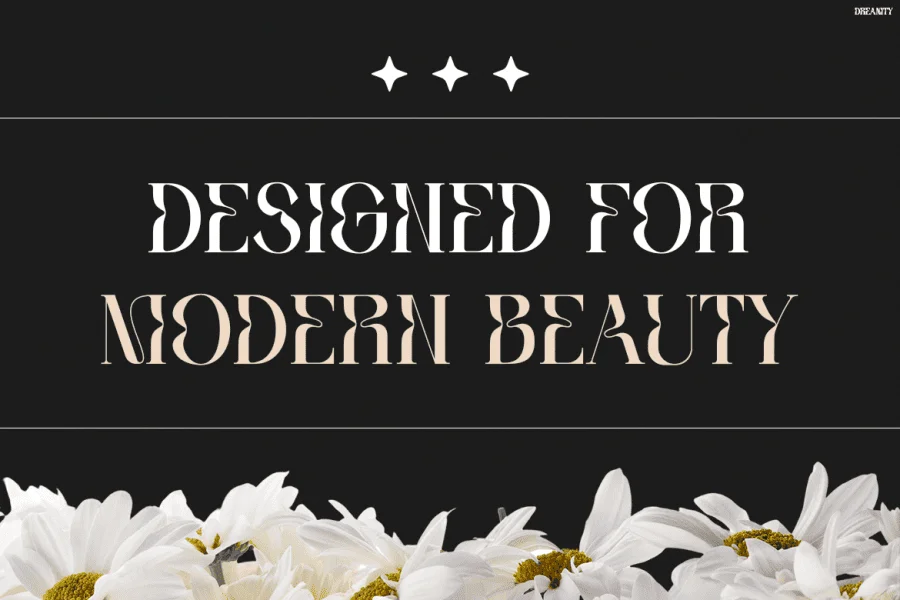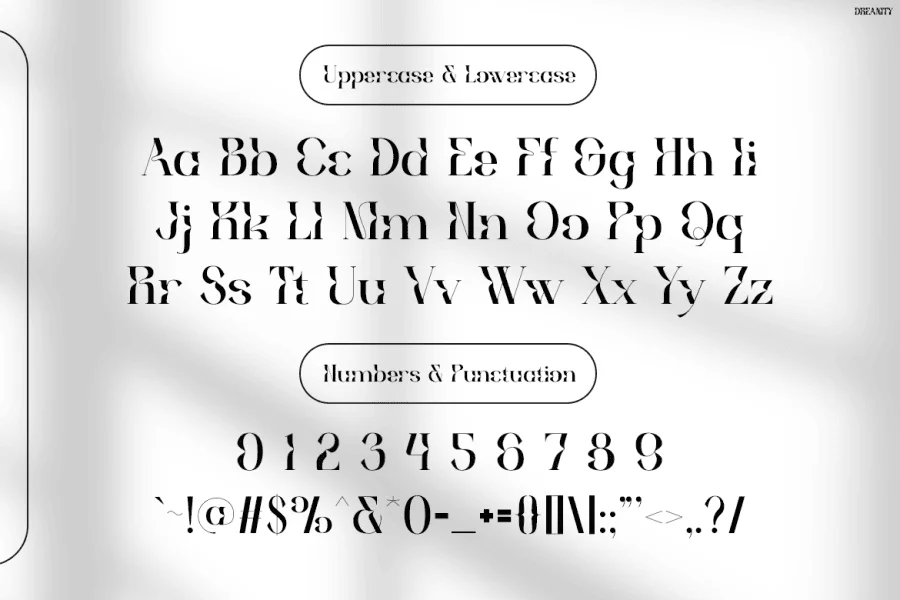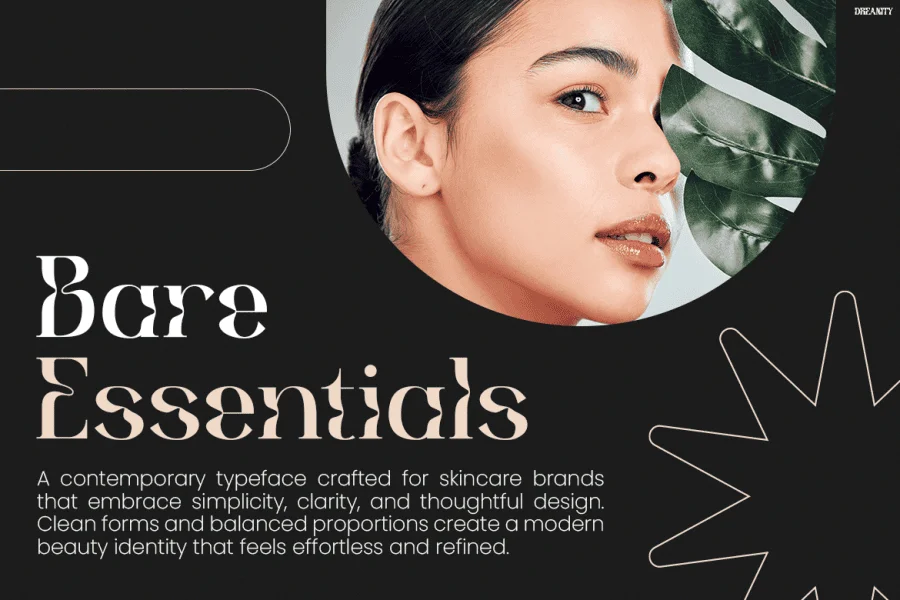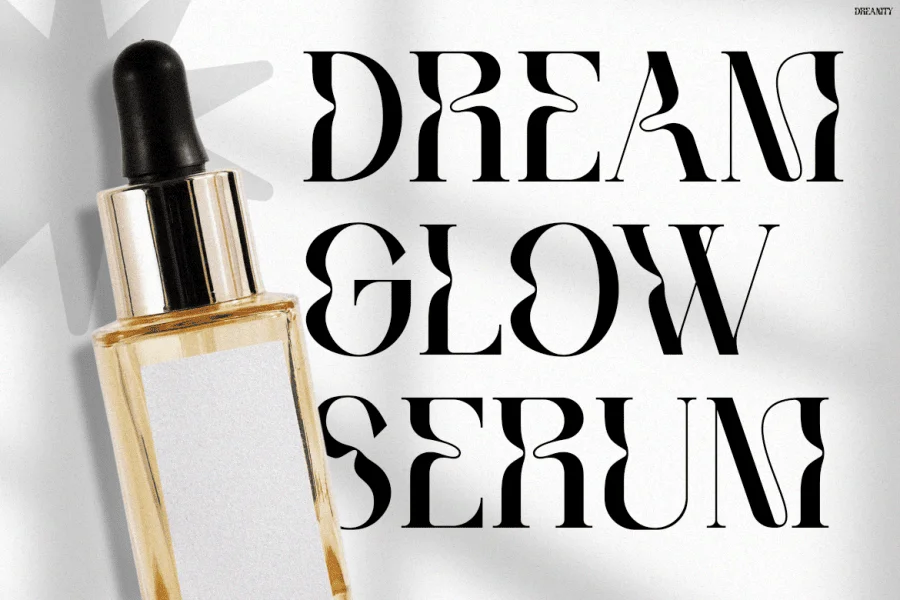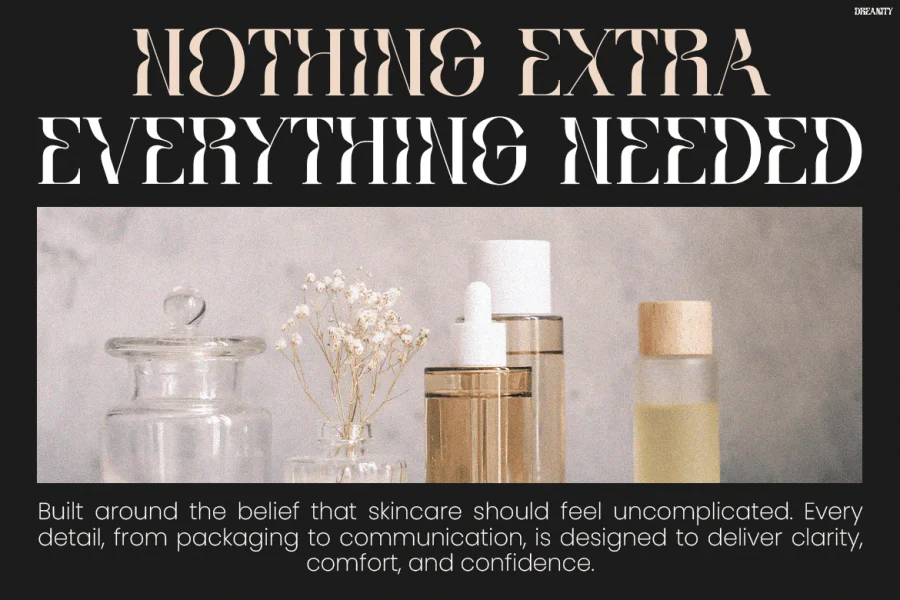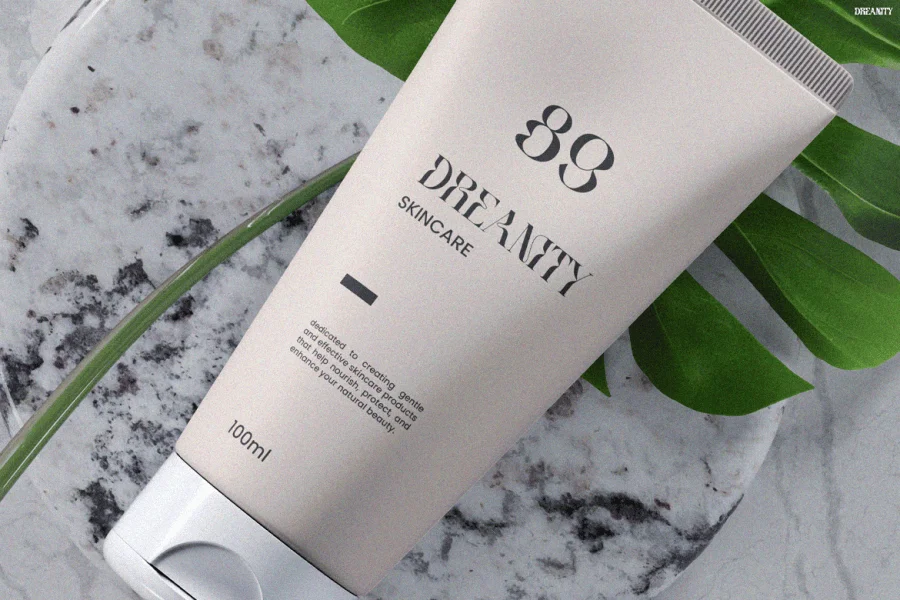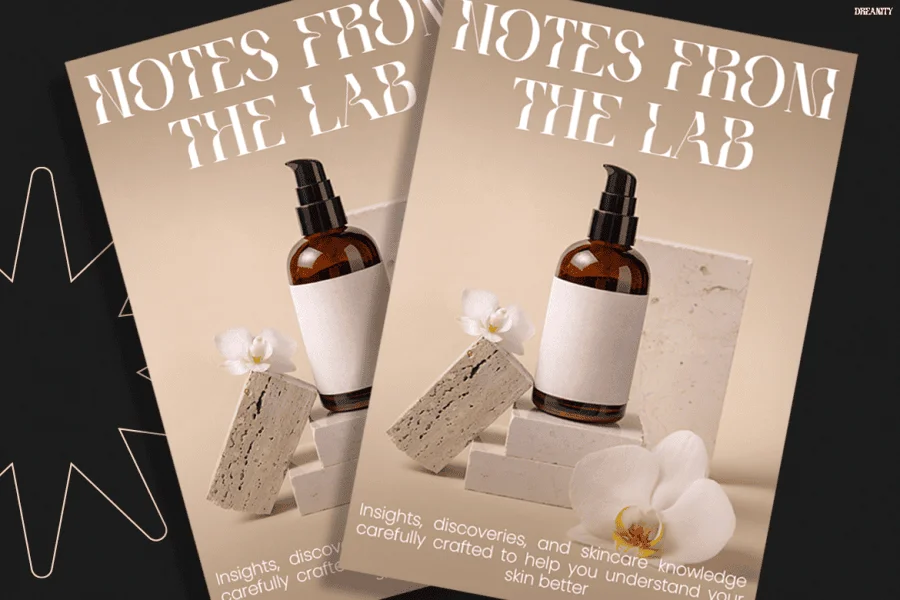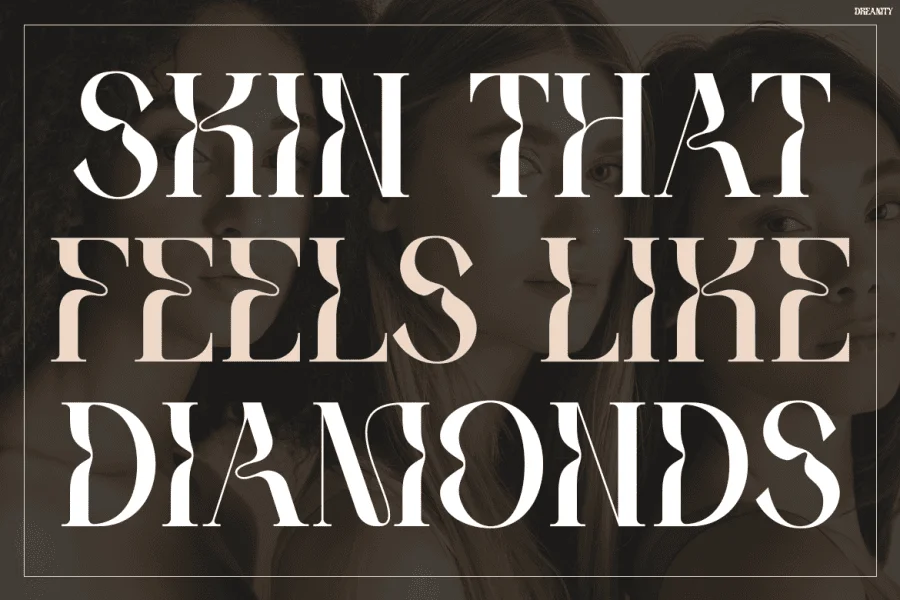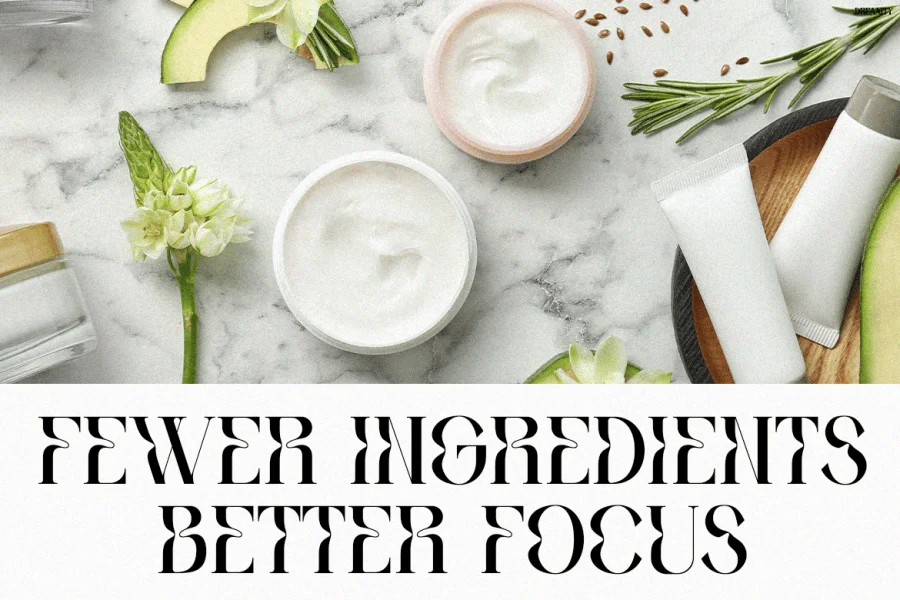
Dreamty is a high-contrast display serif typeface that balances structural elegance with fluid, organic curves. Its letterforms are defined by an extreme contrast between robust, sweeping downstrokes and razor-thin horizontal connections. The design features distinctive, inward-curving terminals and asymmetrical spurs that give each character a sculptural, liquid-like movement. This interplay of sharp, planar cuts and soft, sweeping arcs creates a sophisticated, rhythmic texture that commands attention in display settings.
With its refined and expressive anatomy, this typeface is exceptionally suited for luxury branding, editorial mastheads, and high-end packaging. It finds its natural home in the beauty, skincare, and wellness sectors, where its elegant proportions and artistic flair elevate product labels, promotional campaigns, and digital interfaces with a sense of effortless sophistication.